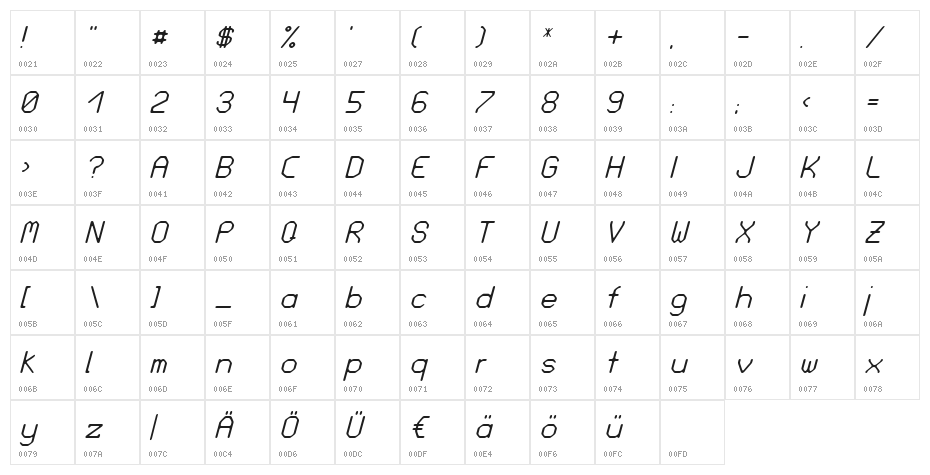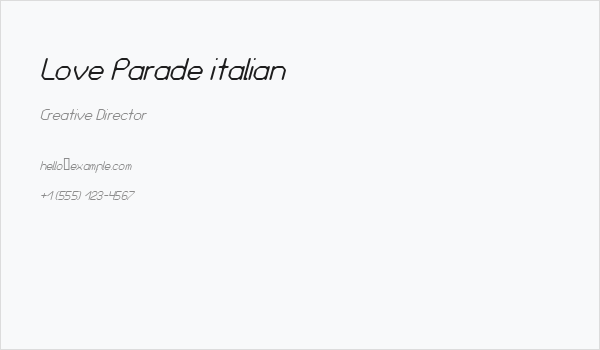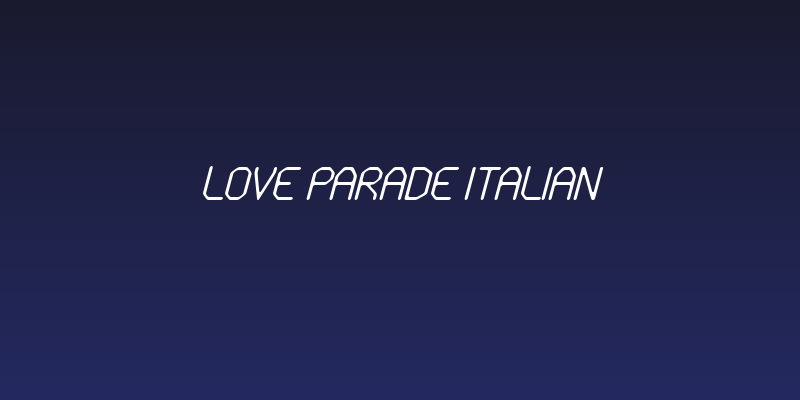
Love Parade italian Font
Love Parade italian Description
This font features a distinctive, modern style with a handwritten, italicized appearance. The characters are slightly elongated with a consistent stroke width, giving it a sleek and fluid look. The uppercase letters maintain a uniform height, while the lowercase letters have a playful, cursive quality. Numbers and special characters are designed to match the overall aesthetic, ensuring a cohesive appearance across all text. The font's unique style makes it suitable for creative and artistic projects, adding a touch of elegance and sophistication.
| Use Case | Logos, Invitations, Artistic Posters |
| Proposed Projects | Ideal for creative projects such as logos, branding, invitations, and artistic posters. |